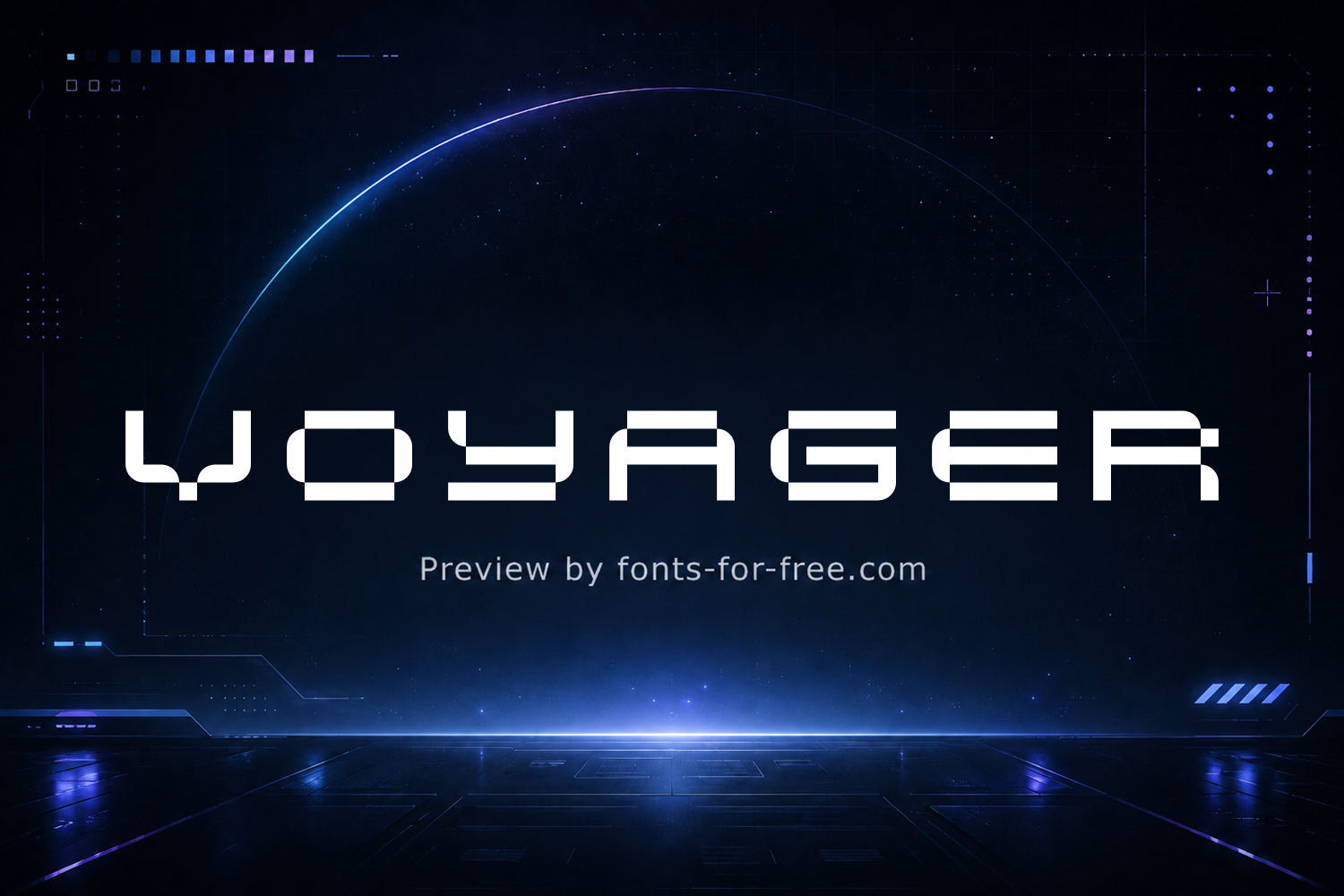
Voyager is a single-weight display typeface designed by Studio Few with a futuristic, space-oriented character and a geometric sans serif construction. Its letterforms use squared curves, extended horizontal strokes, rounded corners, and stencil-like breaks that give the alphabet a modular technical rhythm. The wide proportions and low-contrast strokes create a clean, mechanical texture, while the unusual cuts in letters such as V, G, and R make it more decorative than text-focused. Readability is strongest in short settings, especially titles, logos, sci-fi posters, game graphics, interface-inspired layouts, album covers, and technology-themed branding. It is licensed under the SIL Open Font License 1.1.